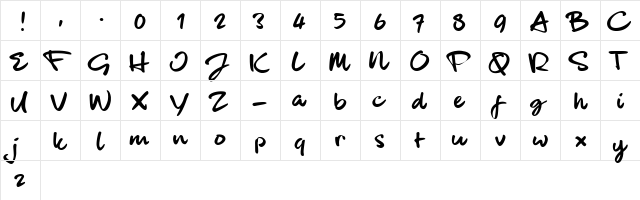
blackHand_TRIAL Regular
| Foundry | JJW van der Ham |
| Designer | JJW van der Ham |
Design Context for blackHand_TRIAL Typeface
blackHand_TRIAL brings a calligraphic fluidity to the page — its connecting strokes and expressive curves give it an unmistakably human quality.